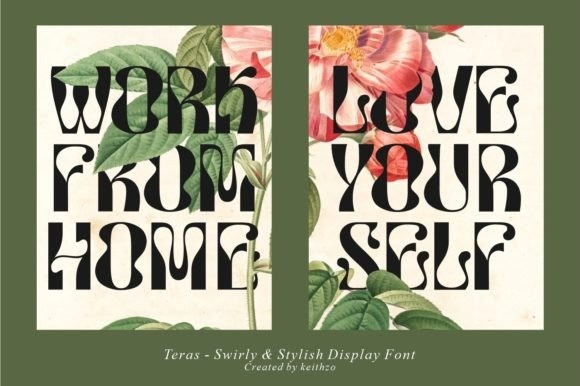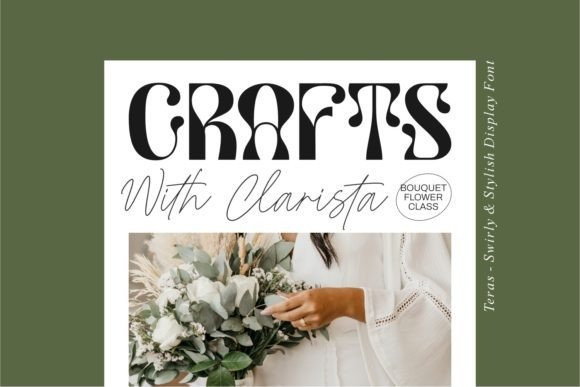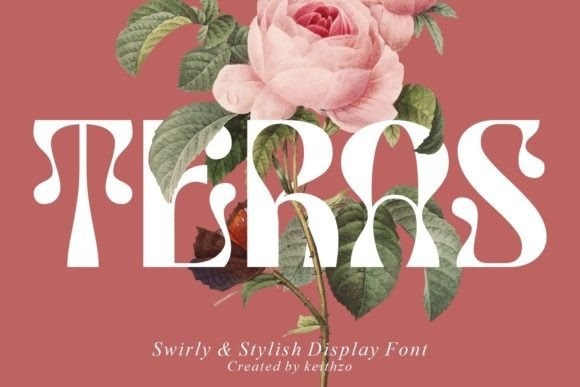
Teras Font
Teras Font – Inspired by the shape of a leaf in the backyard, Teras font tries to break from the existing basic rules, the twists and turns in each character make this font look very beautiful and natural. This versatile script font has a wide spectrum of applications ranging from greeting cards to headlines and is guaranteed to add a distinctive feel to your next project.